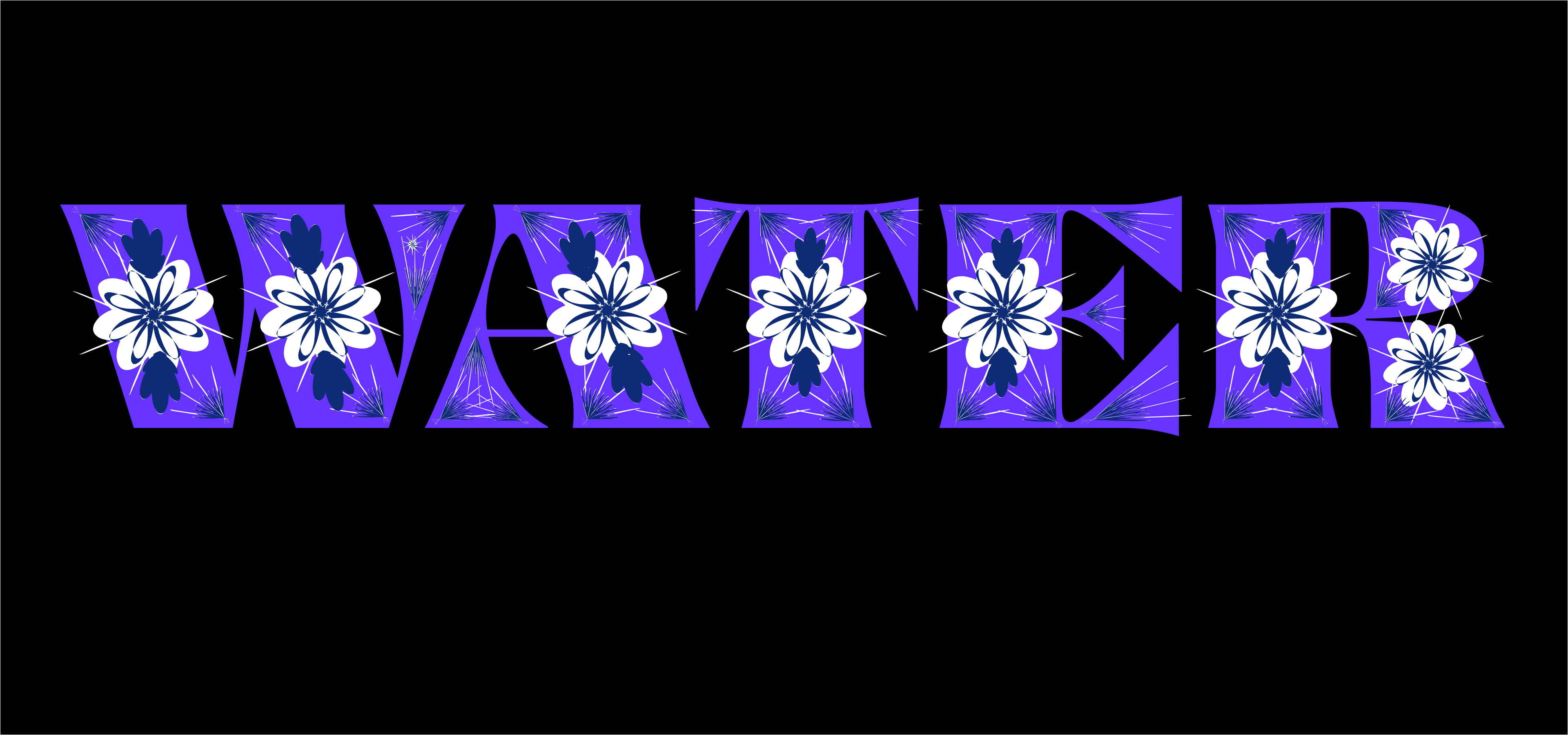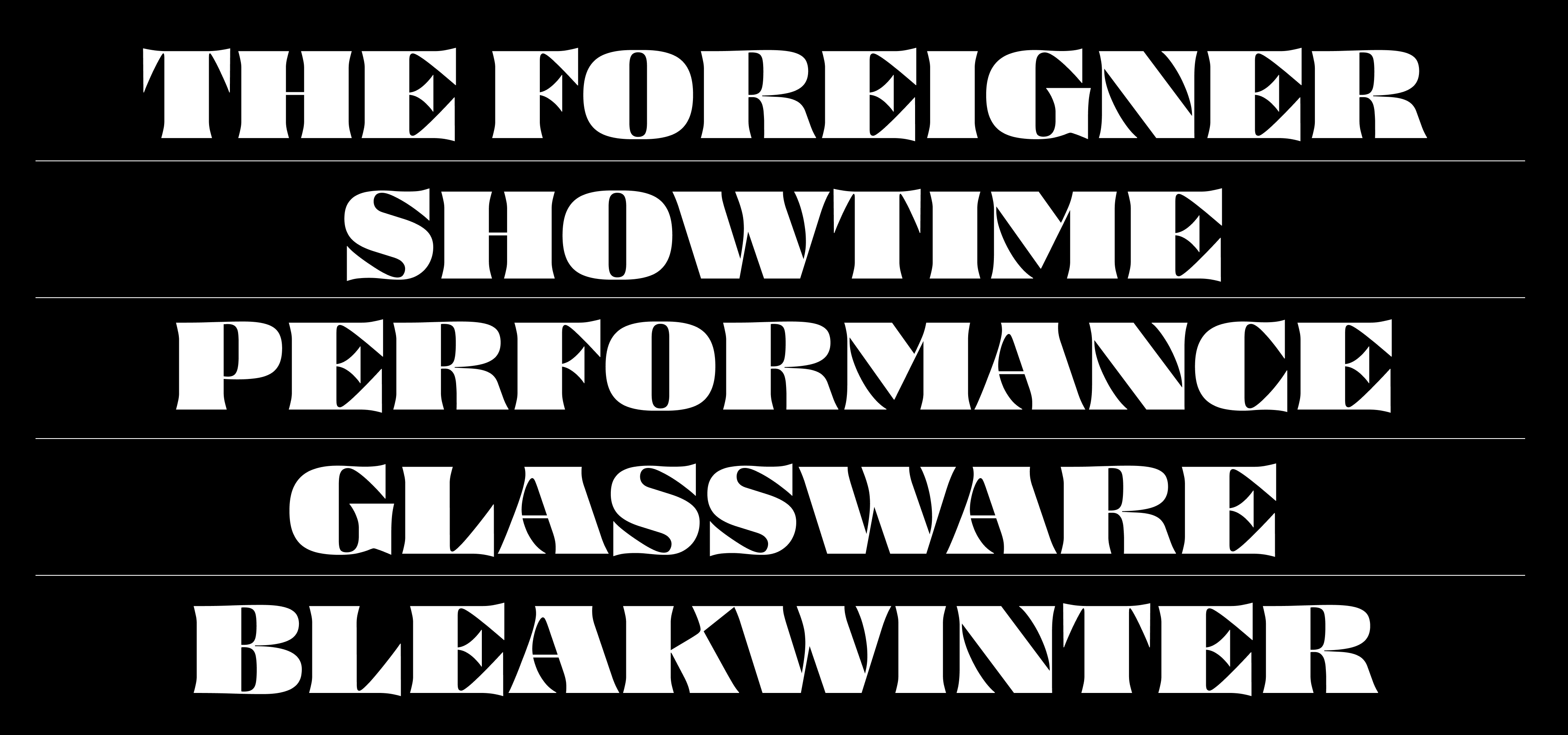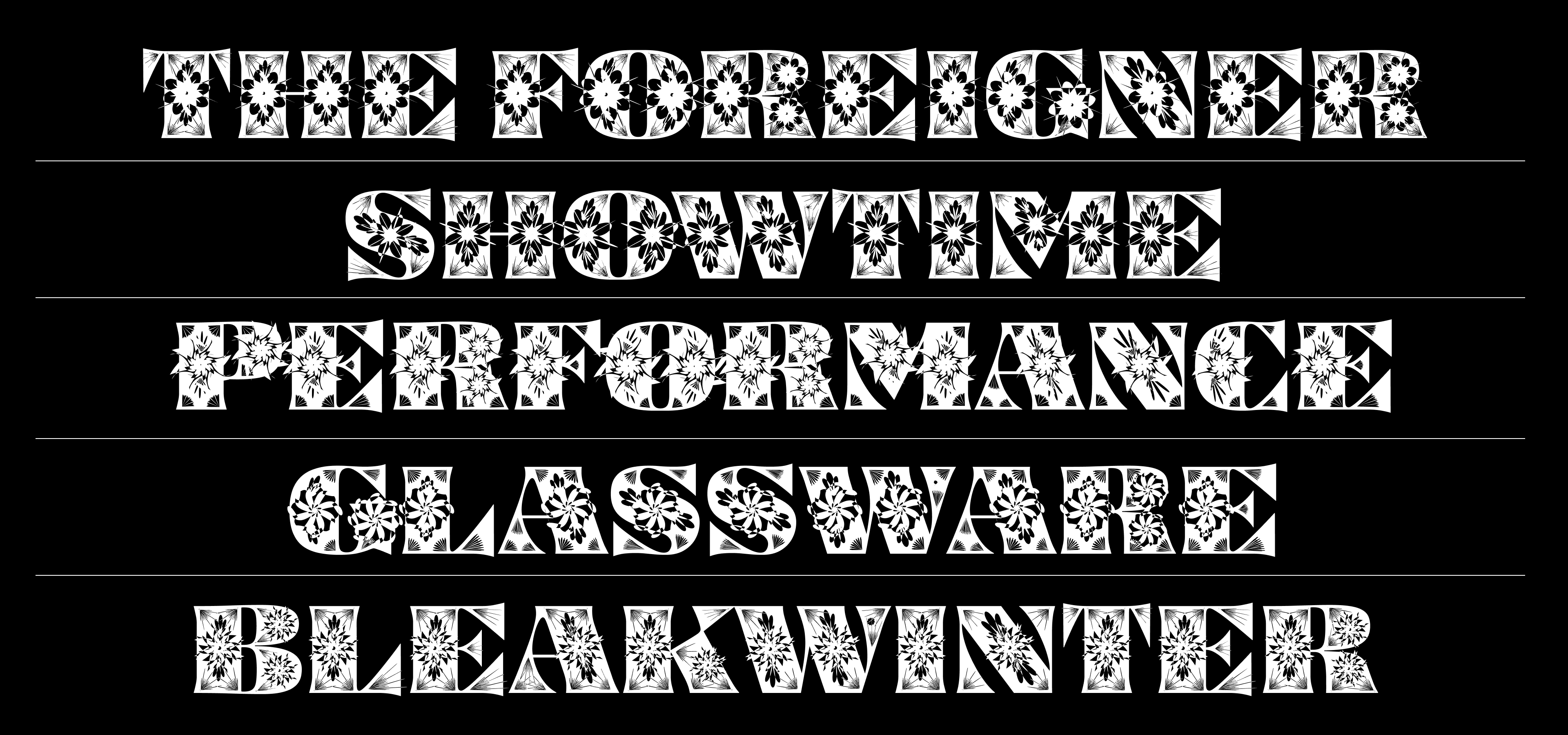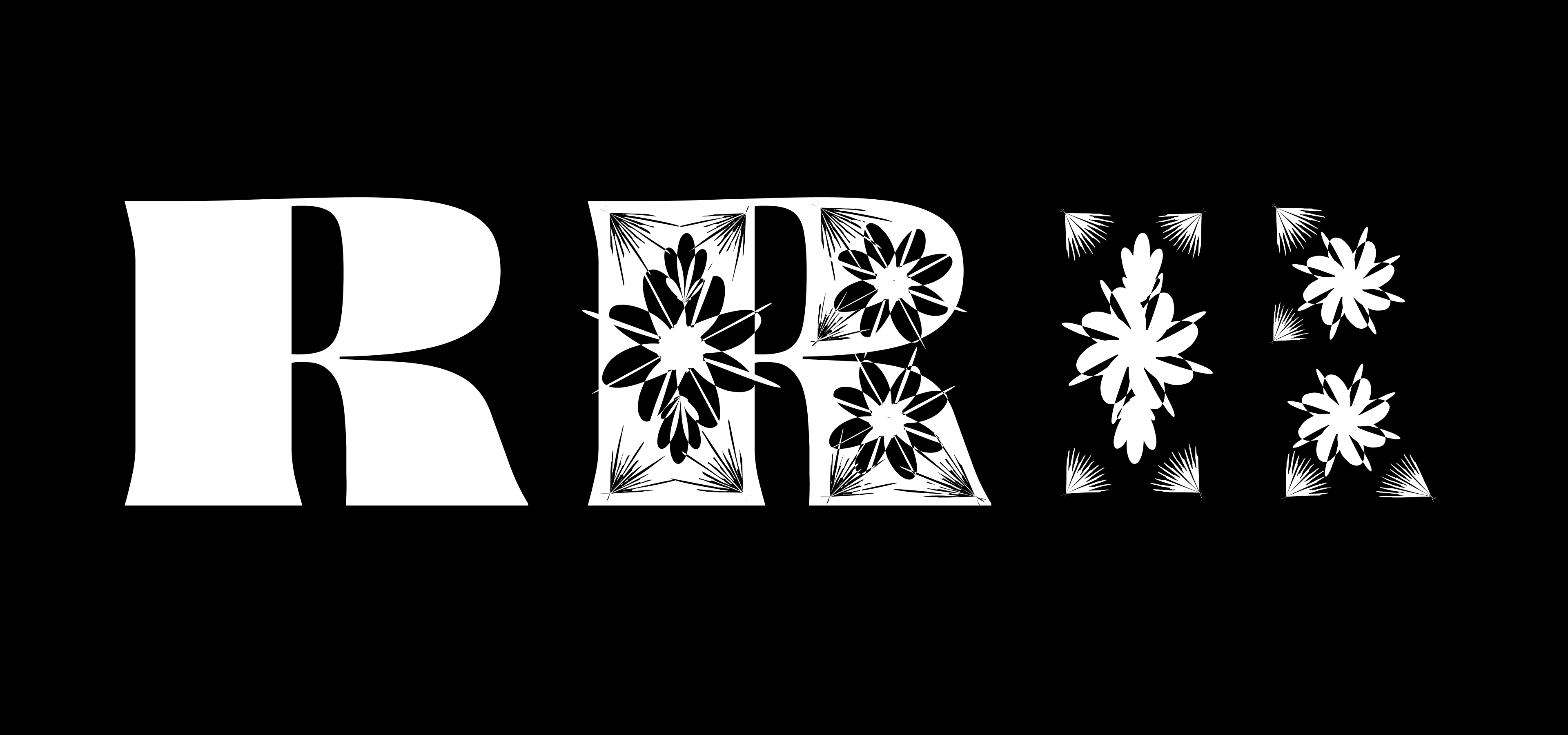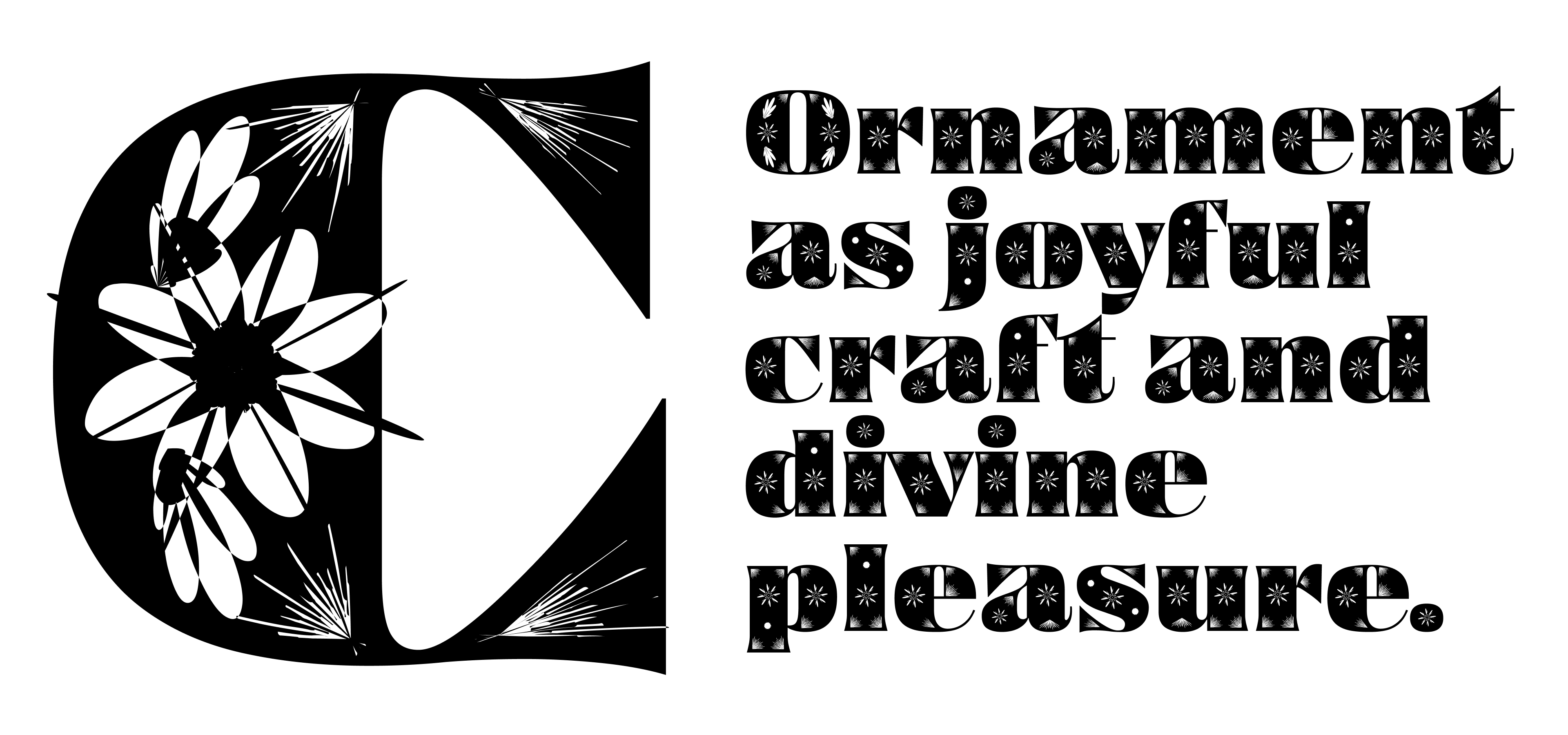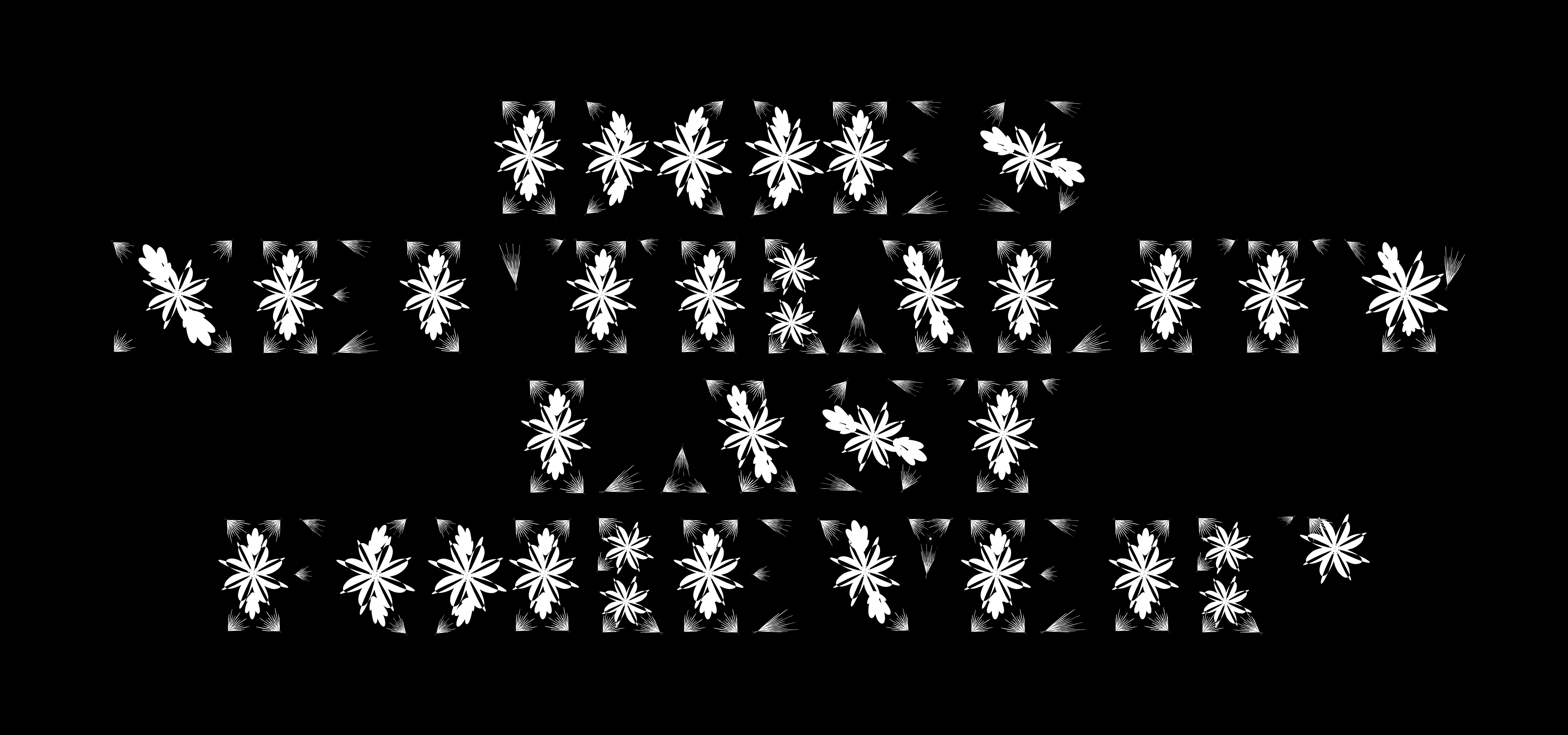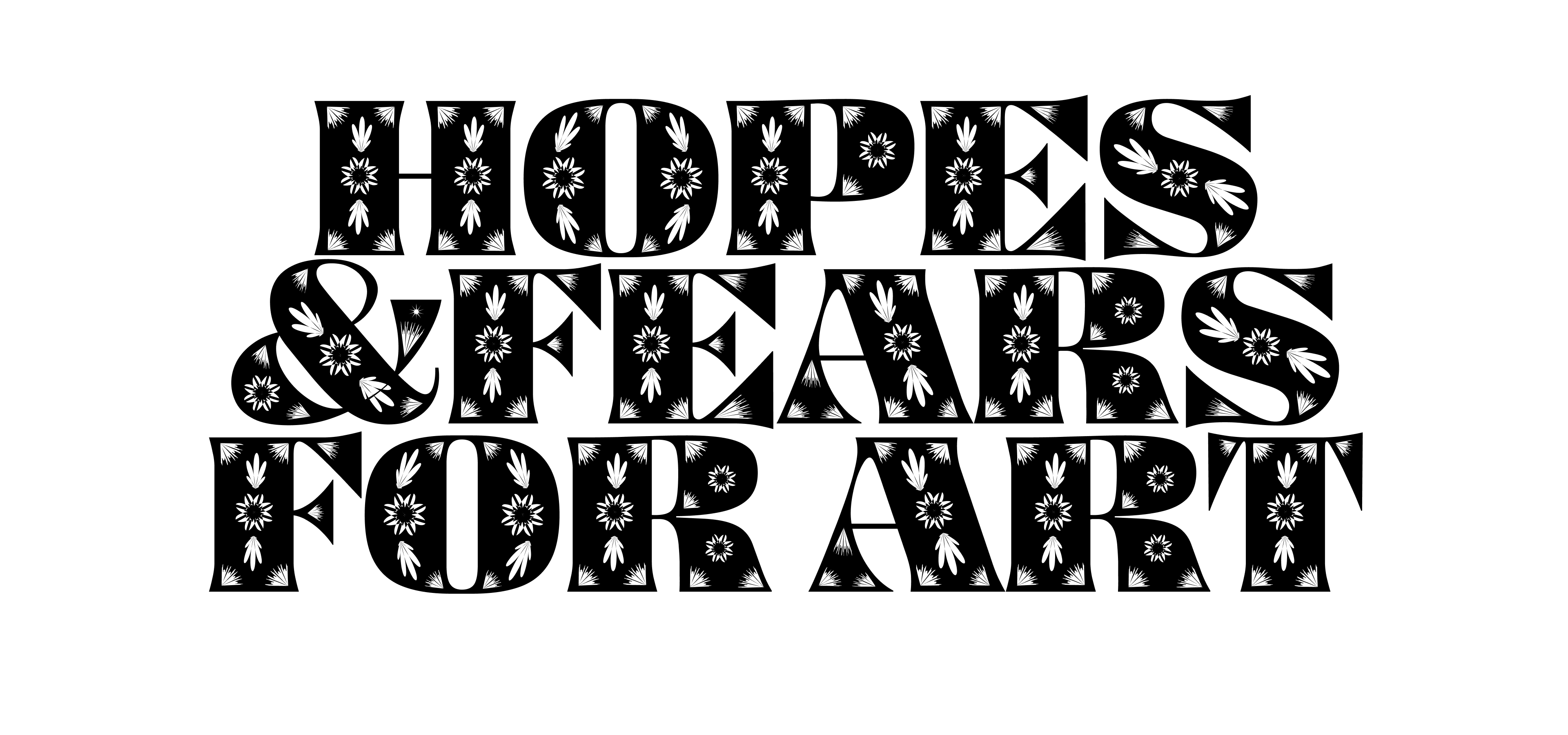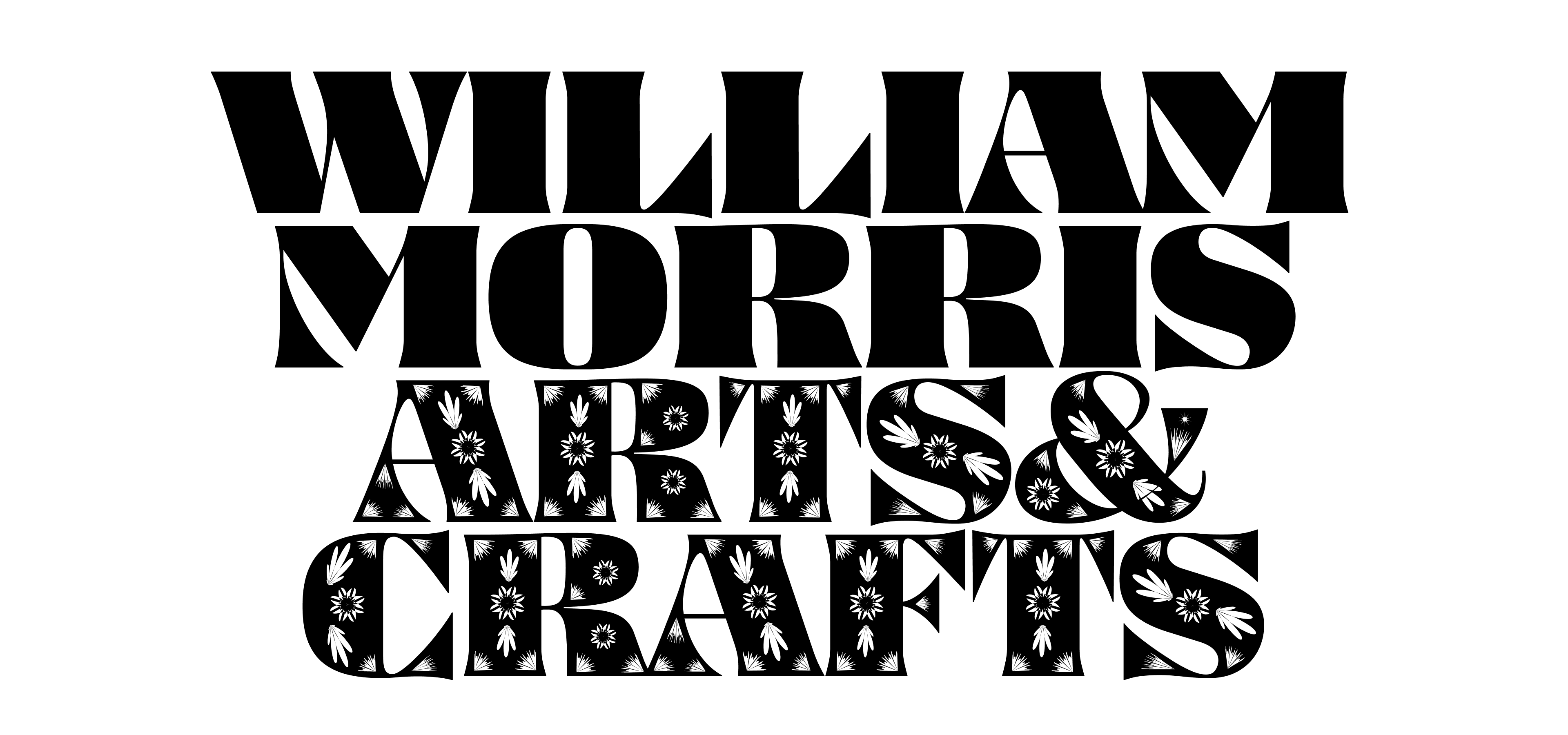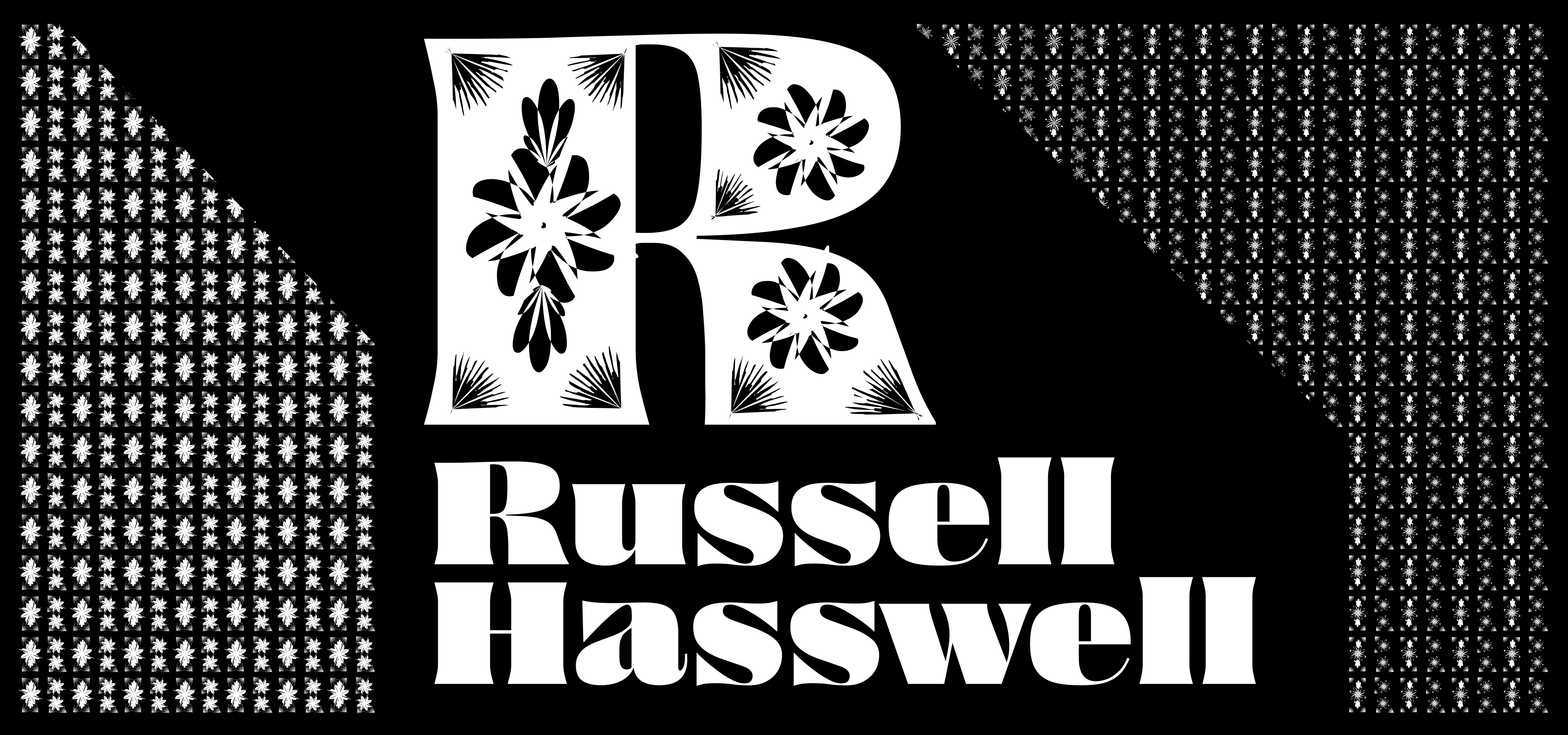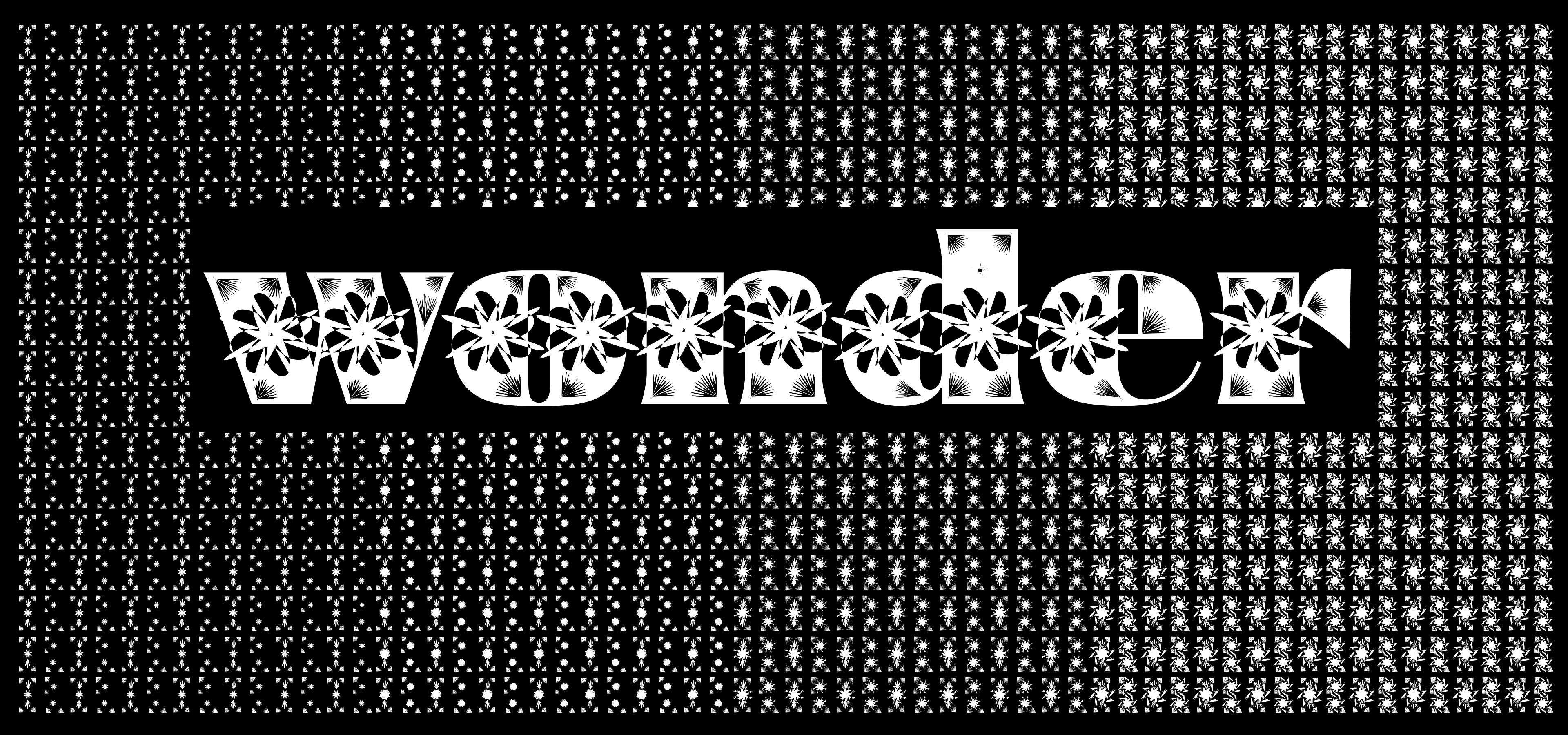
BM Bless is a modern interpretation of a mid-19th century decorative typeface trope. With a combination of procedurally drawn, interpolatable ornaments, embedded in variable font formats, it offers you a radically modern approach to a classic design genre, with a quasi infinite choice of ornament styles, ranging from friendly, floral shape to evil alien-like growths.
| Family Structure | BM BLess, BM Bless Var, BM Bless OO Var (Ornaments Only) |
| Style Axes | 9 Ornaments & 1 'Stretch' Axis |
This type family is a system made of three fonts. Each font is a style: First, the letter outlines only, available as a static font, Secondly, a variable font or the Ornaments Only (BM Bless OO Var), and finally a variable font with both the letter outlines and the ornaments (BM Bless Var). These three fonts can be layered entirely to users liking and taste, offering a wide range of unique design options. We have also included five sets of predefined instances.